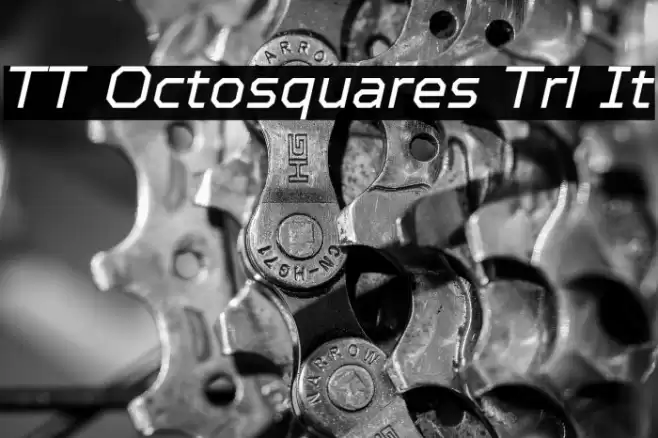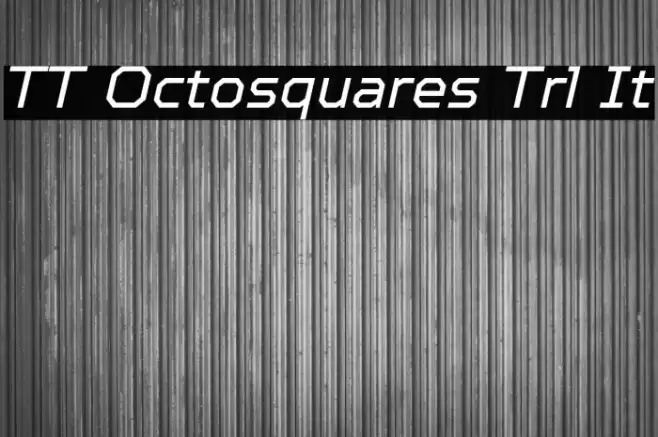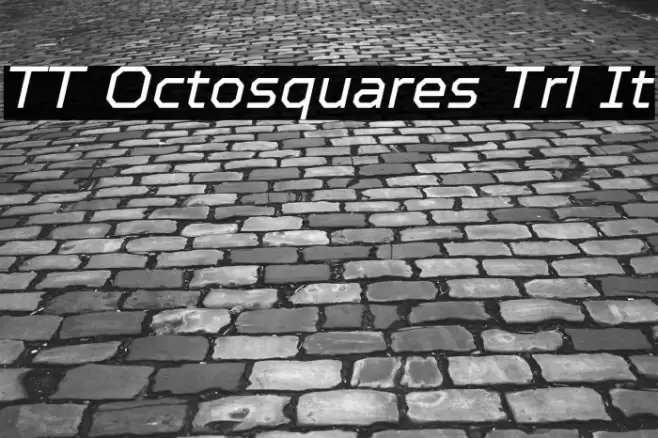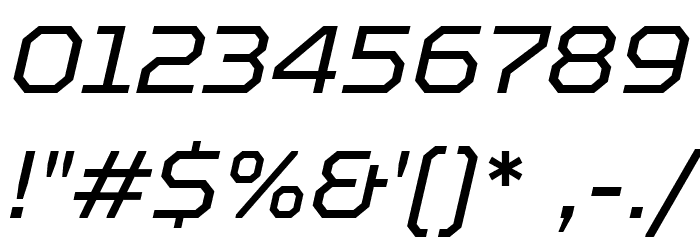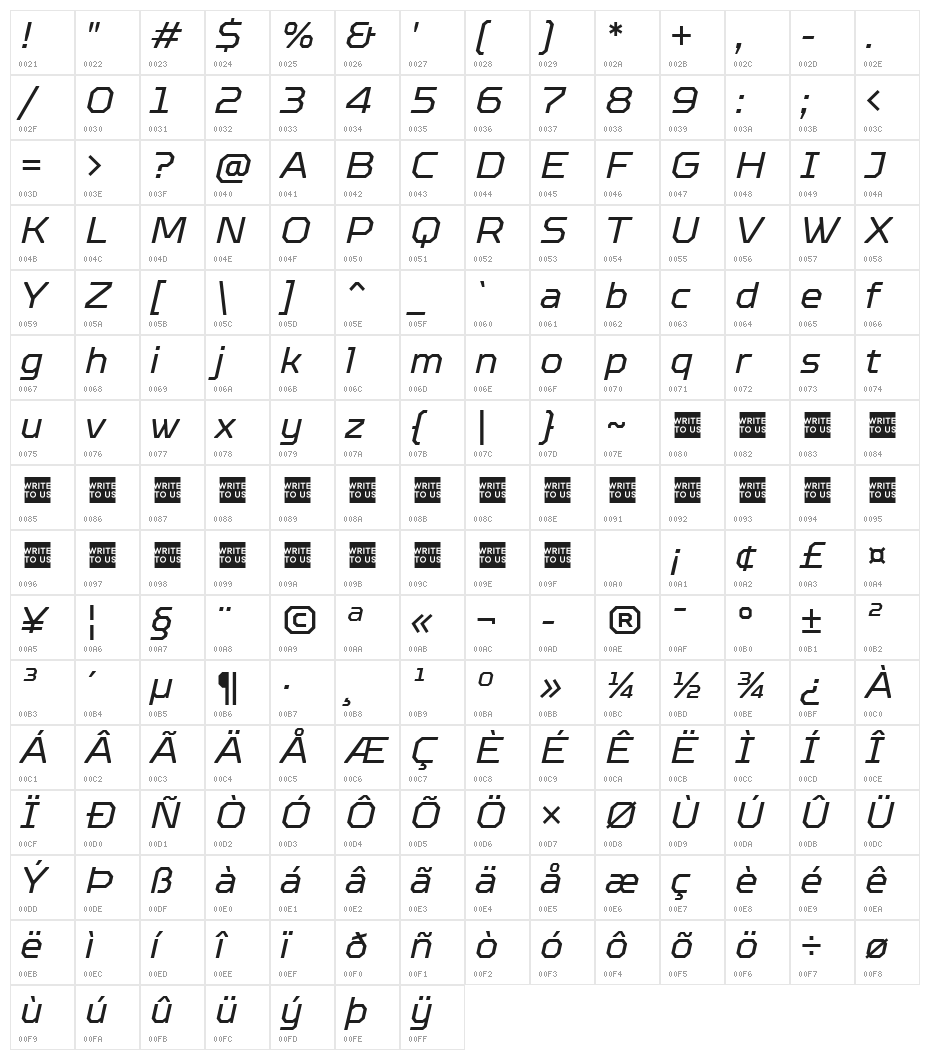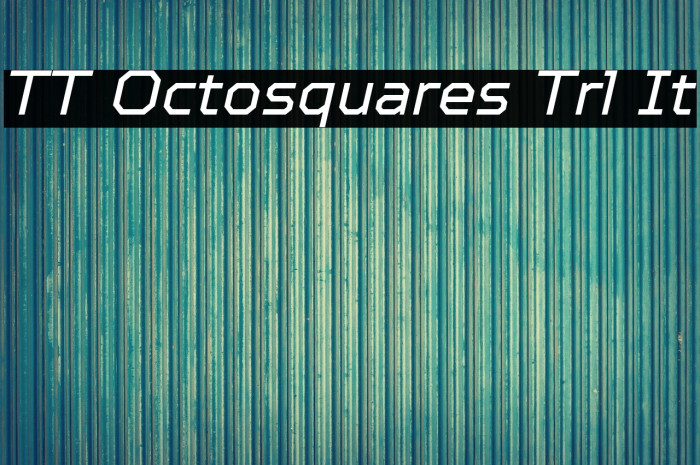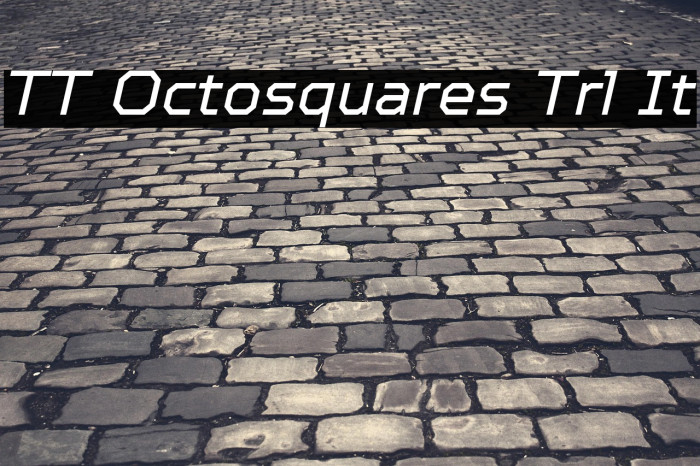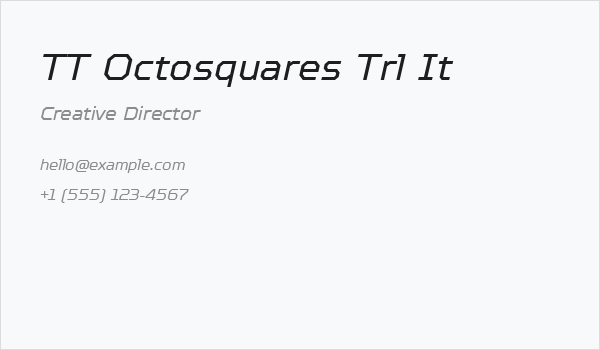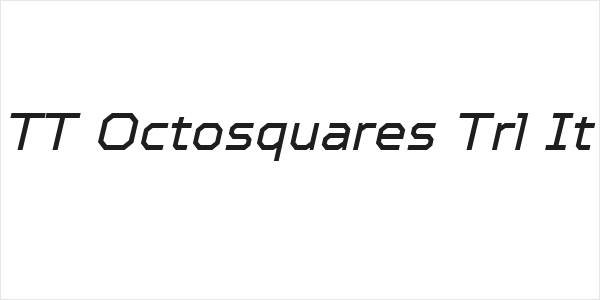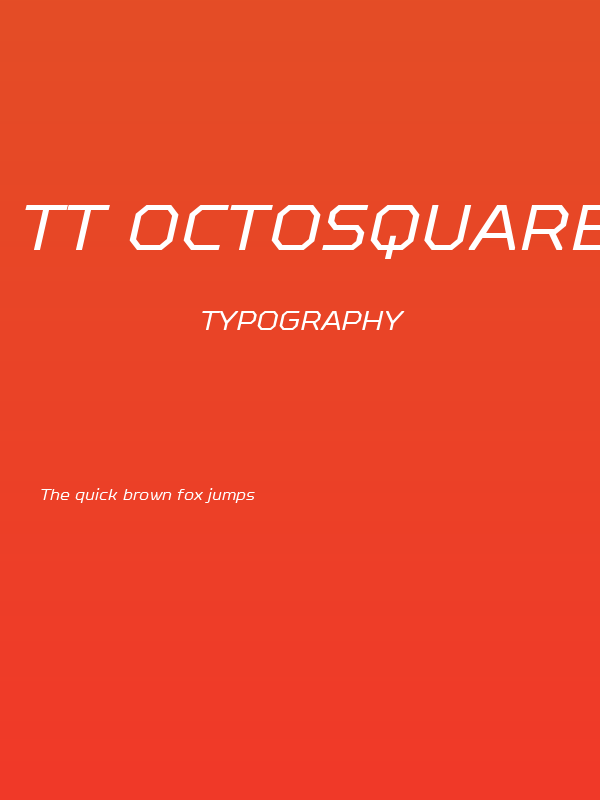
TT Octosquares Trl It Font
TT Octosquares Trl It Description
This font features a modern, angular design with a geometric structure that gives it a futuristic appearance. The characters are slightly italicized, adding a dynamic and forward-moving feel. The uppercase and lowercase letters maintain a consistent style, with sharp edges and clean lines. Numbers and special characters follow the same design principles, ensuring uniformity across all glyphs. The font's unique style makes it suitable for projects that require a contemporary and tech-savvy look.
A modern, angular font with a geometric and slightly italicized design from Uncategorized fonts.
- Proposed Projects: Ideal for technology branding, modern advertising, digital interfaces, and futuristic designs.
- Use Case: Logos, Headlines, Digital Interfaces